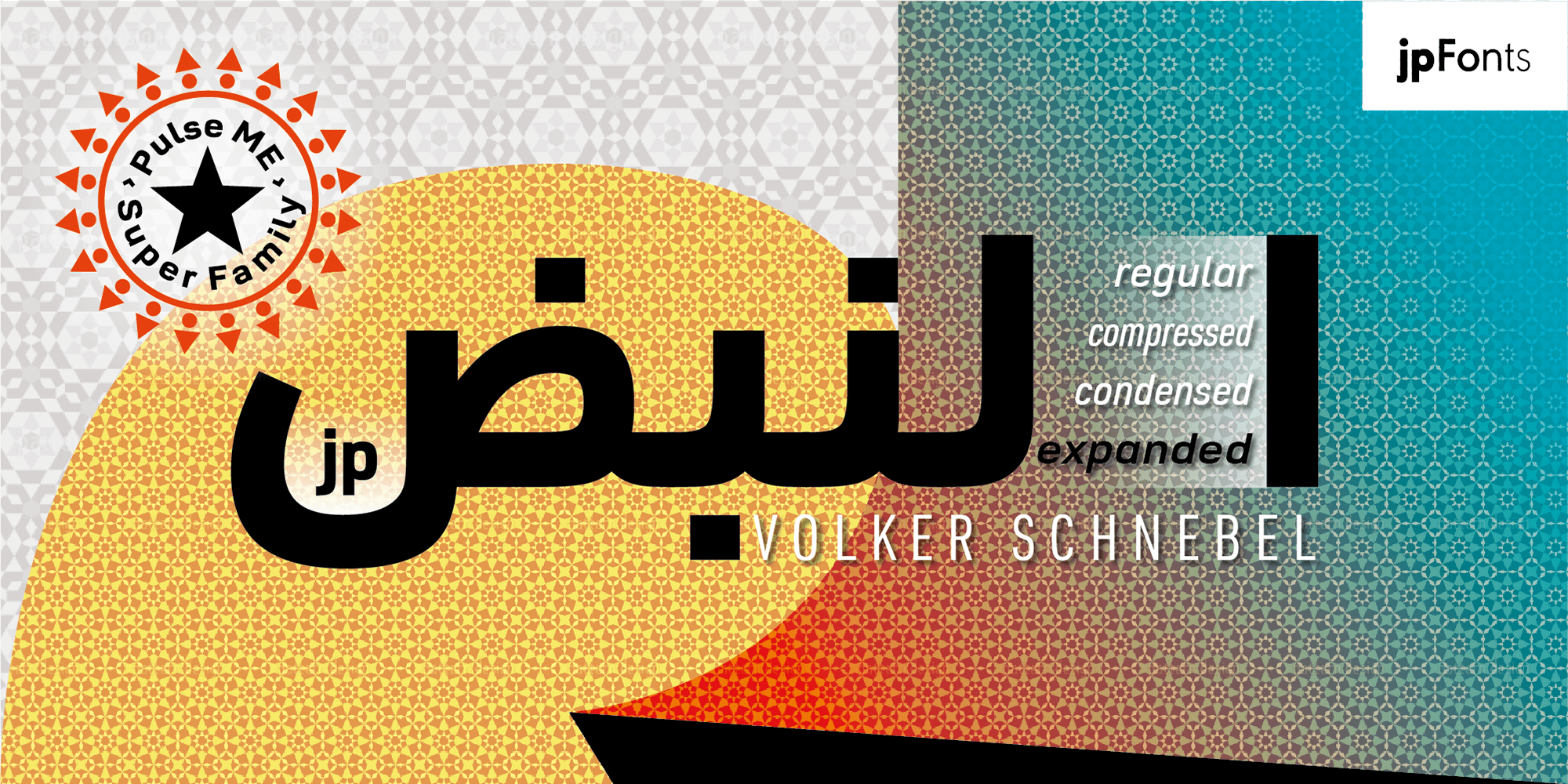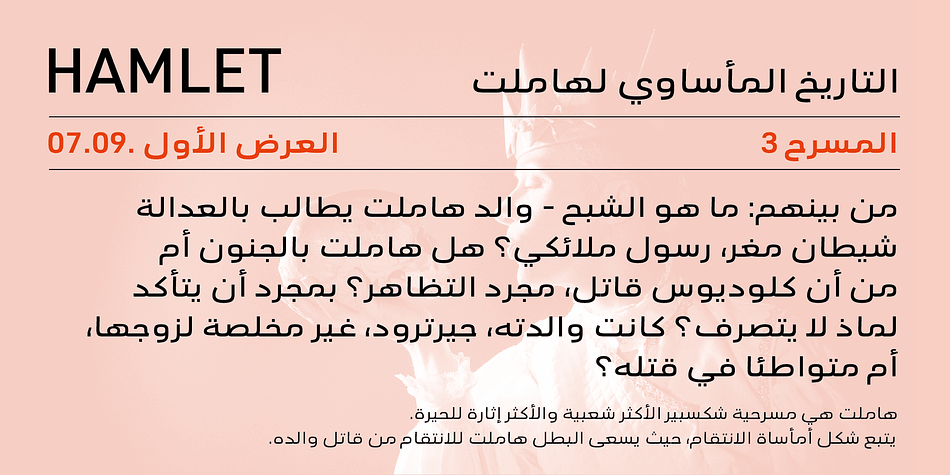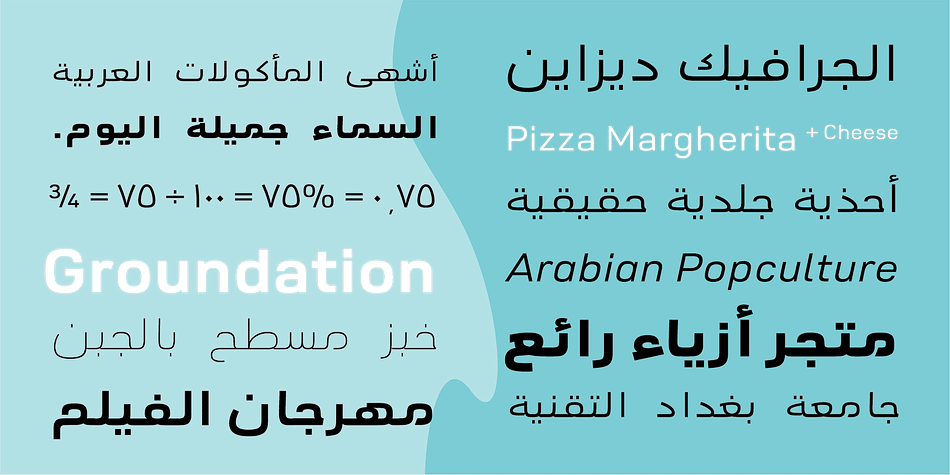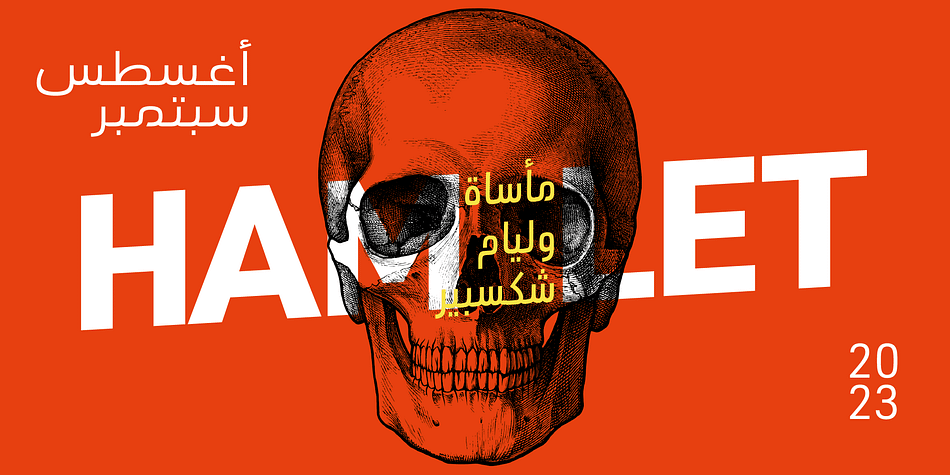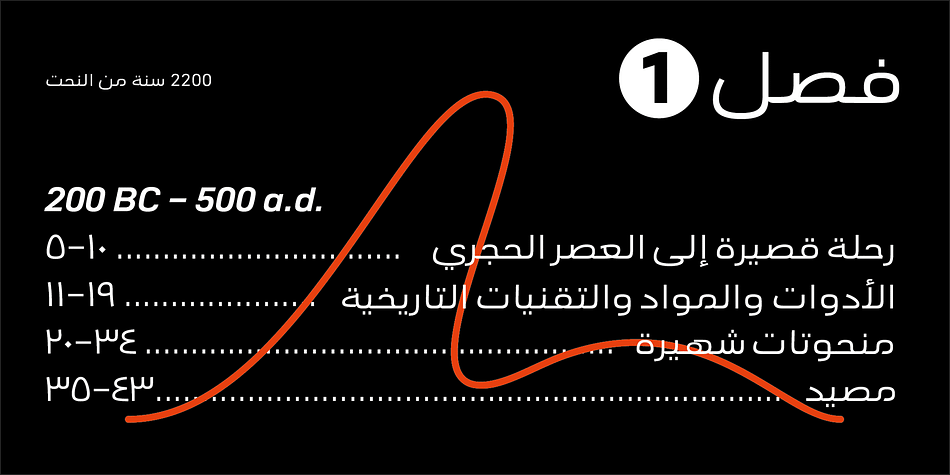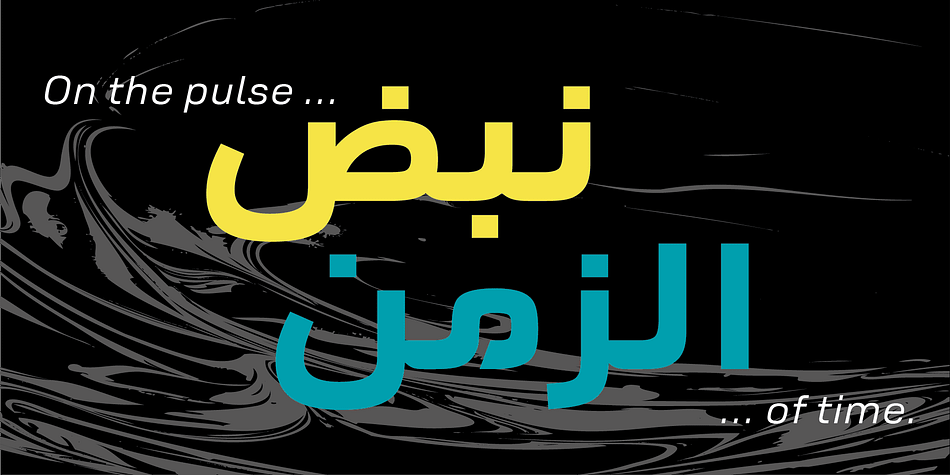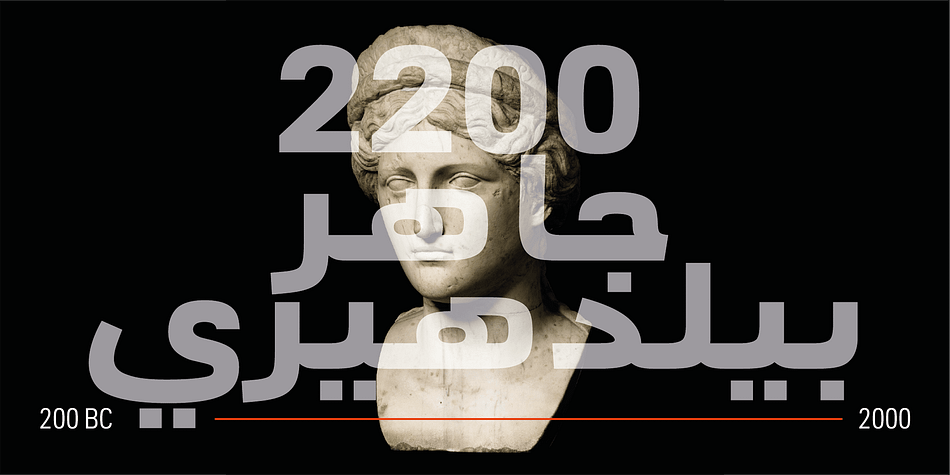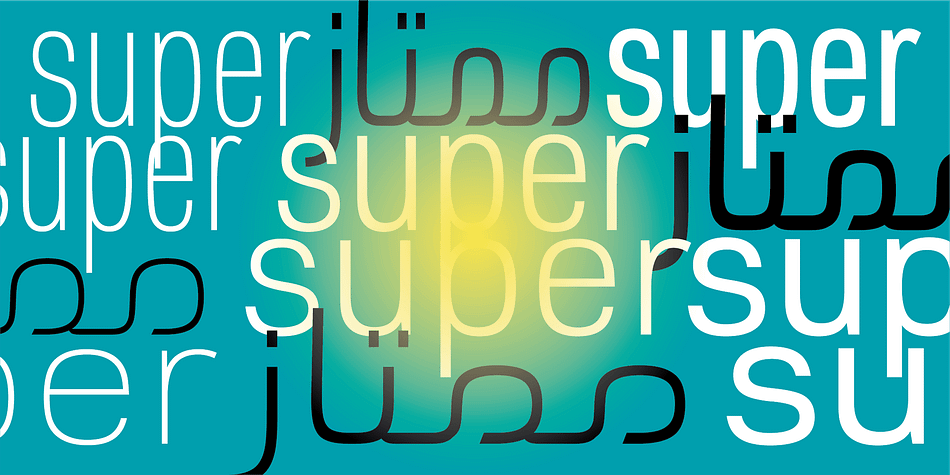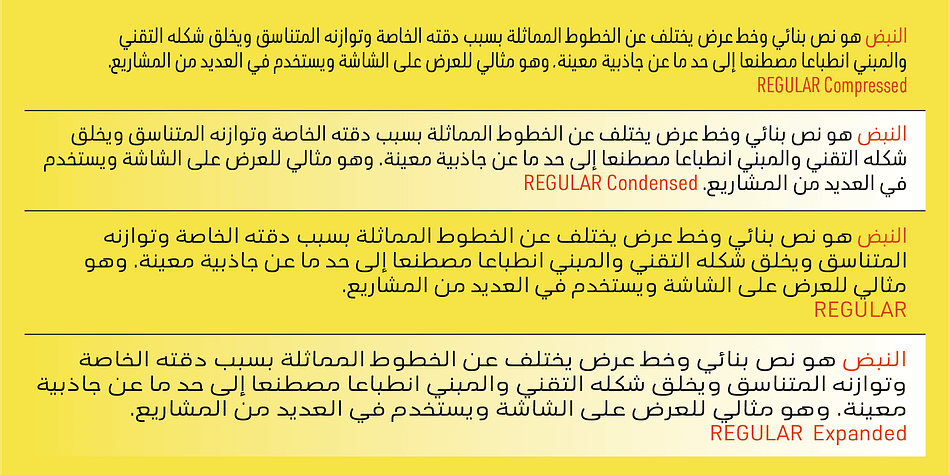
Pulse JP ME Expanded
Designed by Volker Schnebel, Pulse JP ME Expanded is a sans serif font family. This typeface has six styles and was published by JPFonts.
Pulse JP ME is a constructivist text and display font that differs from comparable fonts due to its special sharpness and harmonious balance. Its technical and constructed form creates a somewhat artificial impression of particular appeal. It is ideal for display on the screen and can be used in many projects.
Pulse JP ME is a super family consisting of 48 fonts from compressed to expanded in six weights each. This opens up a wide designspace with the possibility of combining typefaces of the same character in a wide variety of variants and being able to adapt them to very different conditions. The details of the individual fonts are coordinated with each other with great precision and perfectly implemented in terms of craftsmanship. In all variants, this leads to a very balanced design with particular sharpness. The very extensive character set supports 120 Latin + 7 Arabic languages + Hebrew. The Arabic characters were designed in close collaboration with the Iranian designer Prof. Raafat Negarandeh. Here the constructivist approach is repeated within Arabic proportions. This leads to a very reduced and clear design with high legibility. Additional typographical adjustments can be made in the variable font, which is also available. There all variants are stored in a single font and can be continuously fine-tuned between them.